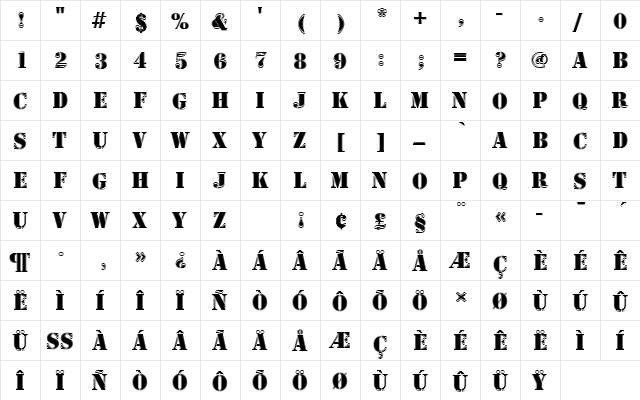
StencilDIn1 Regular
Design Context for StencilDIn1 Typeface
StencilDIn1 borrows the utilitarian aesthetic of stencil lettering, with its characteristic cutaways and no-frills construction lending an industrial edge.
Ideal for industrial branding, streetwear, military-adjacent aesthetics, and urban signage projects.
Pro Tip: Pair StencilDIn1 with raw, utilitarian design elements — exposed concrete textures, flat colour, and minimal ornamentation suit it well.